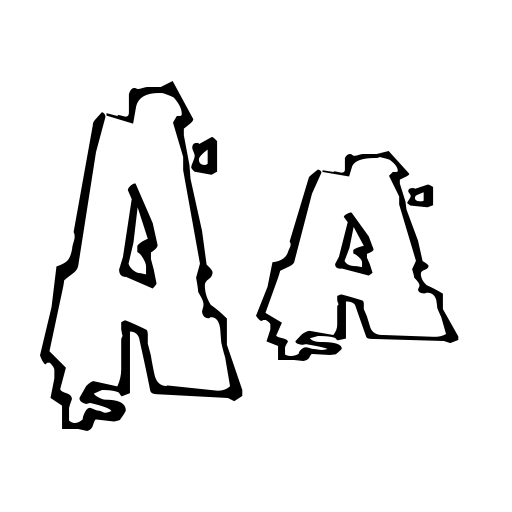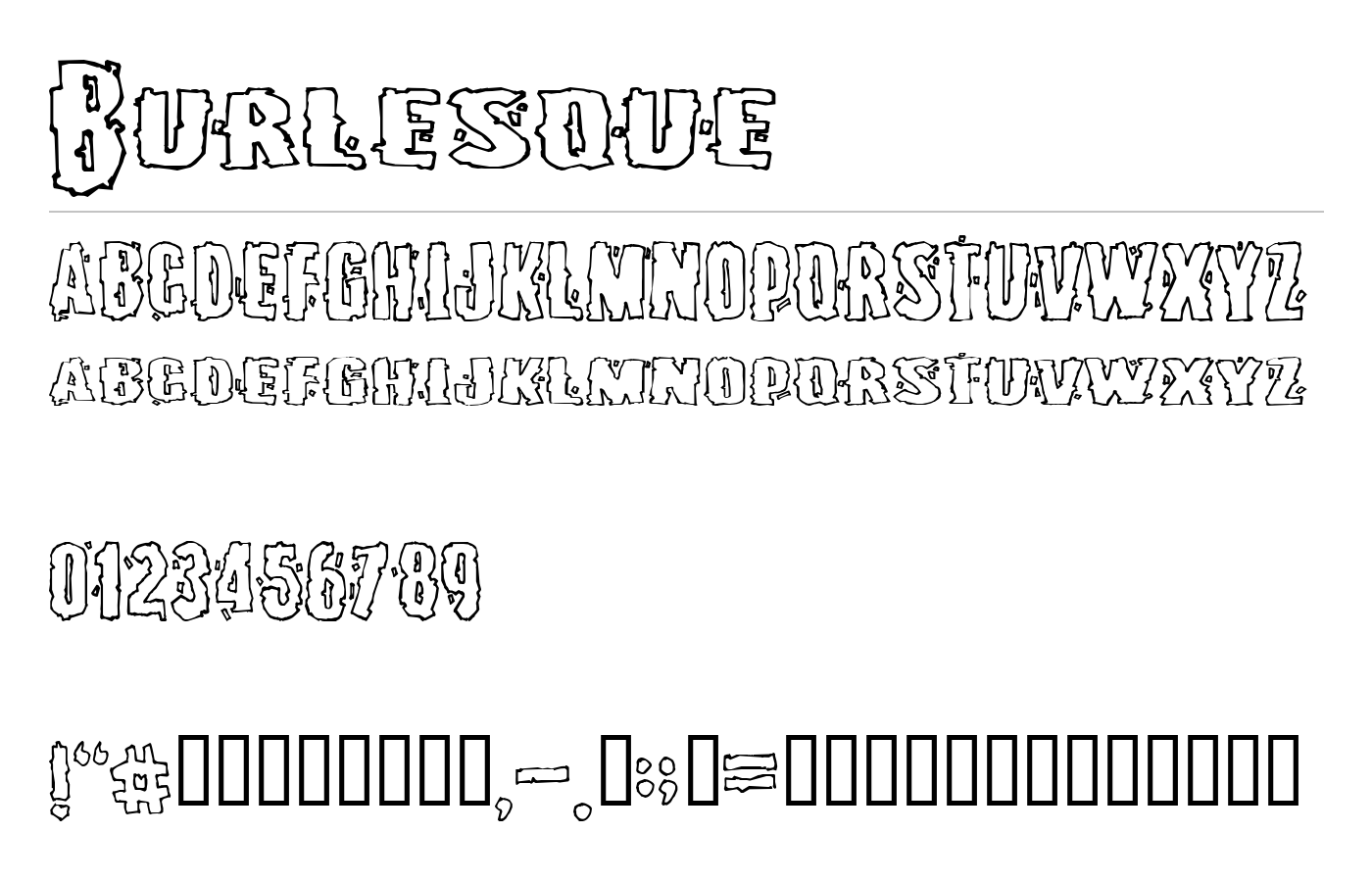
Burlesque is a bold and decorative display font featuring rugged, irregular edges that lend it a playful, vintage carnival vibe. Its condensed uppercase letterforms with textured outlines make it perfect for eye-catching headlines, posters, and branding that aim to convey excitement and a quirky, theatrical personality. This font works best in creative, fun contexts where a distinctive, energetic look is desired.
Burlesque Font
About Burlesque Font